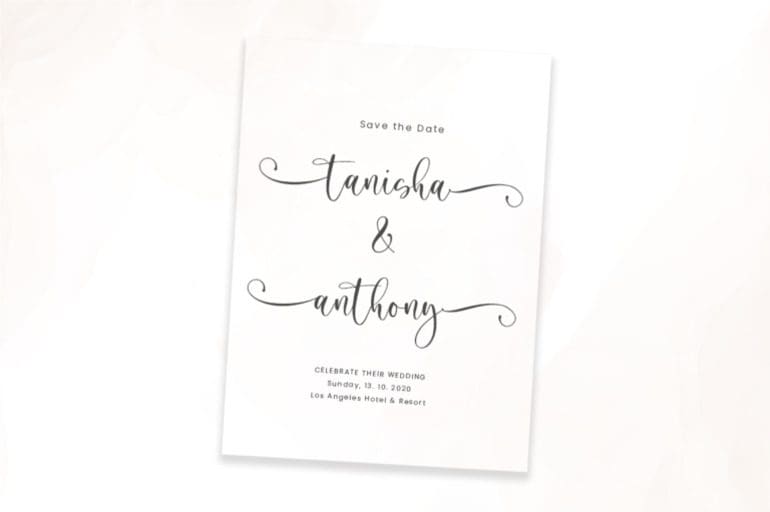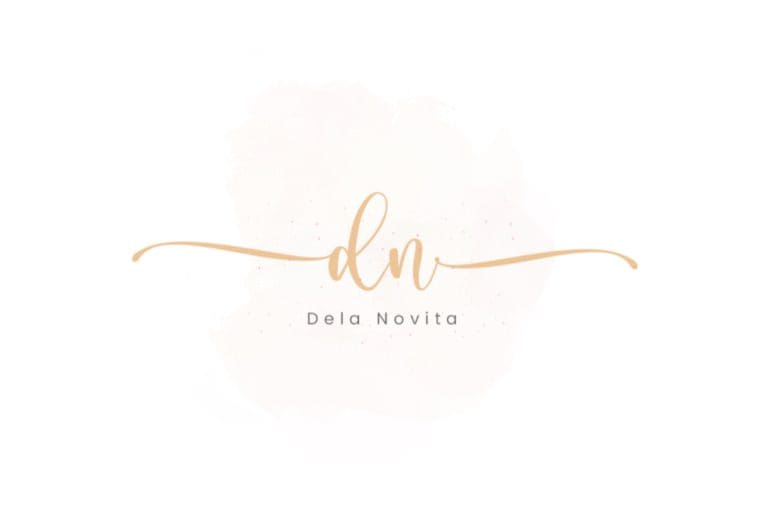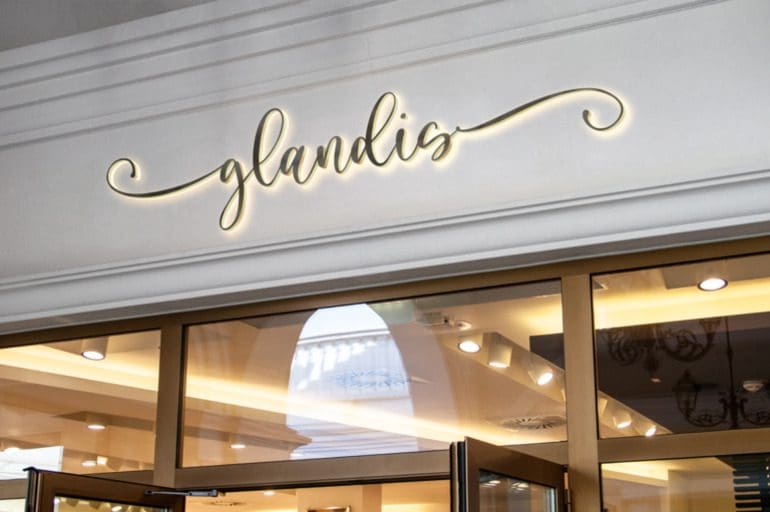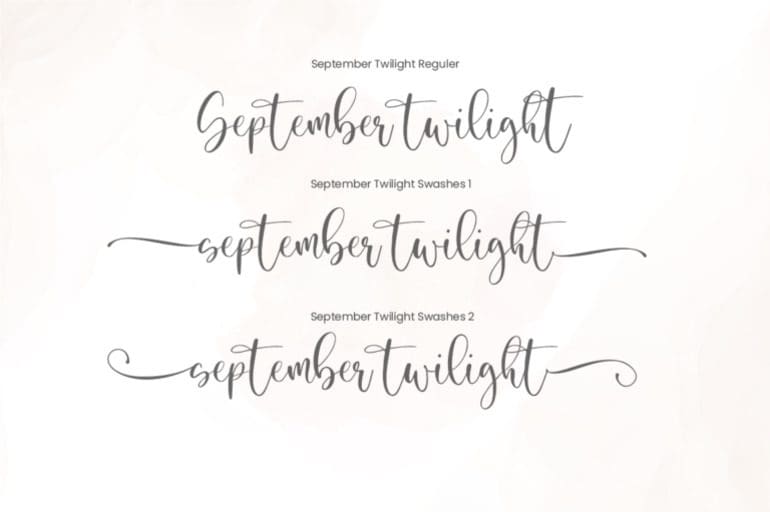
September Twilight Font
September Twilight is a beautiful calligraphy font perfect for crafting, branding, invitation, stationery, wedding designs, social media posts, advertisements, product packaging, product designs, label, photography, watermark, special events or anything. September Twilight comes with full set of uppercase and lowercase letters, swash alternates, ligatures,multilingual symbols, numerals and punctuation.